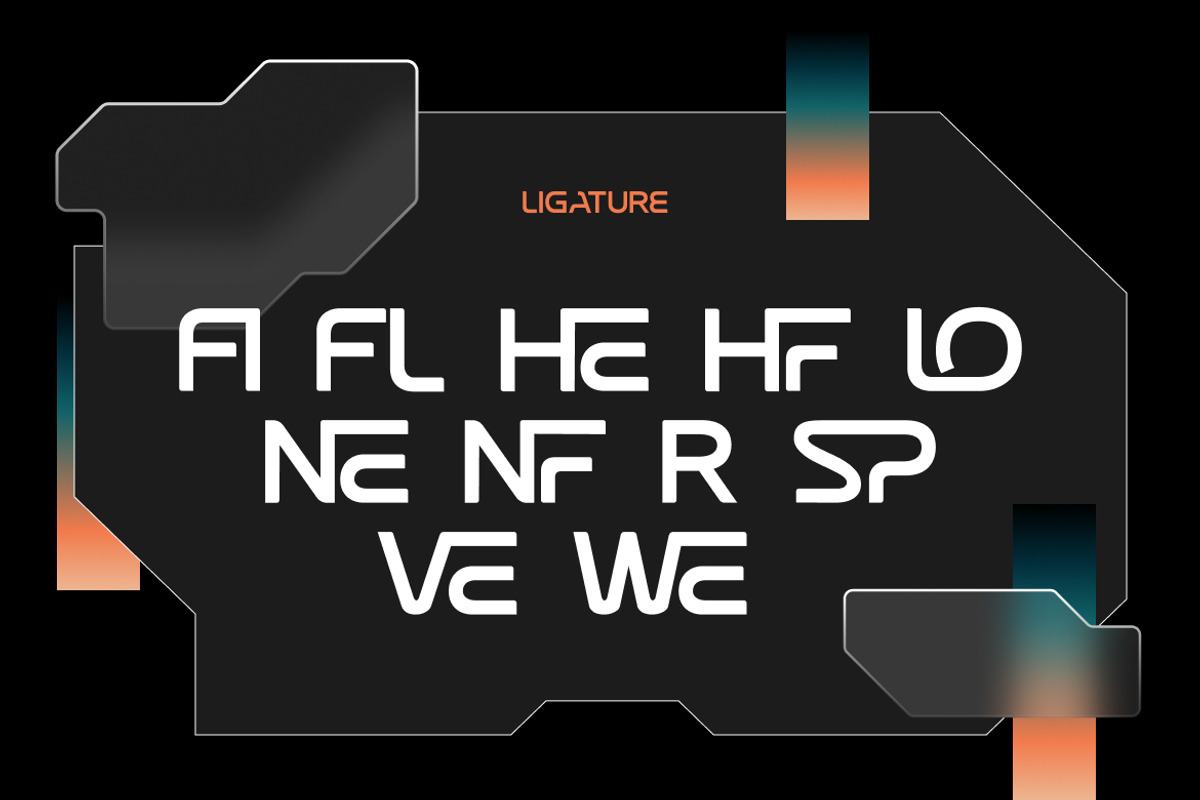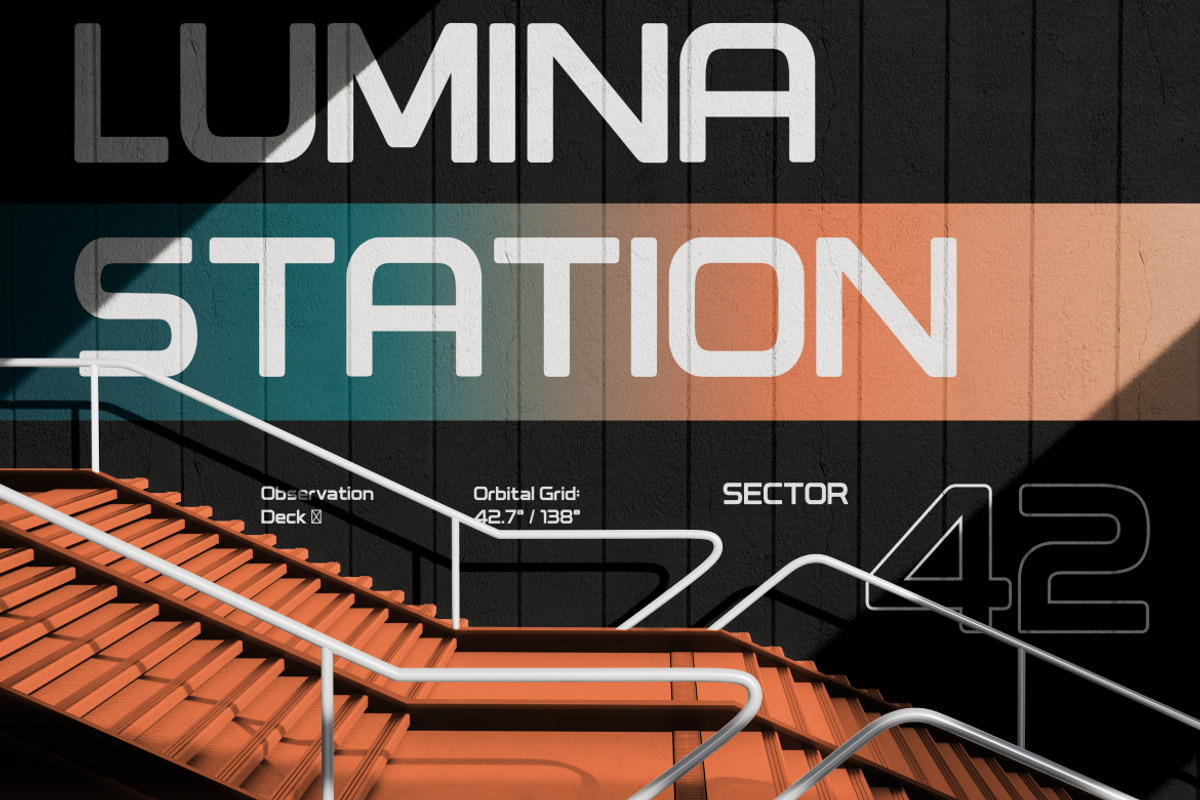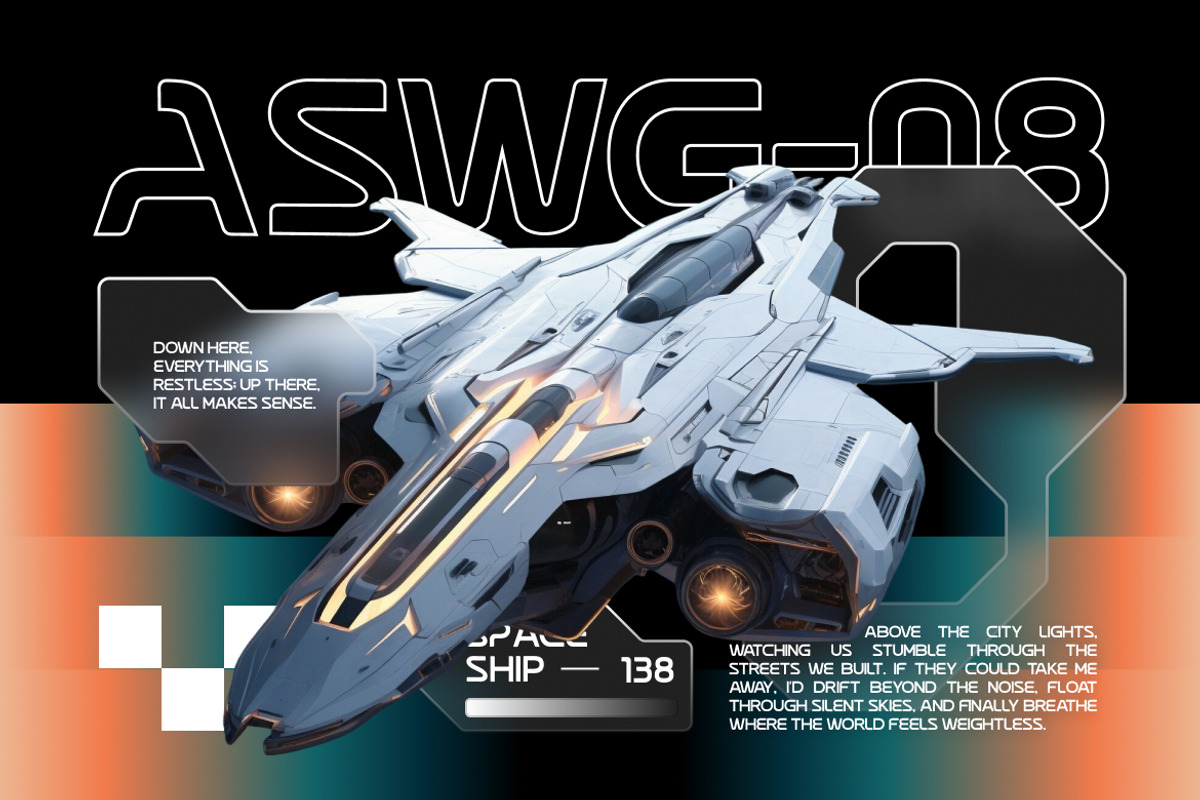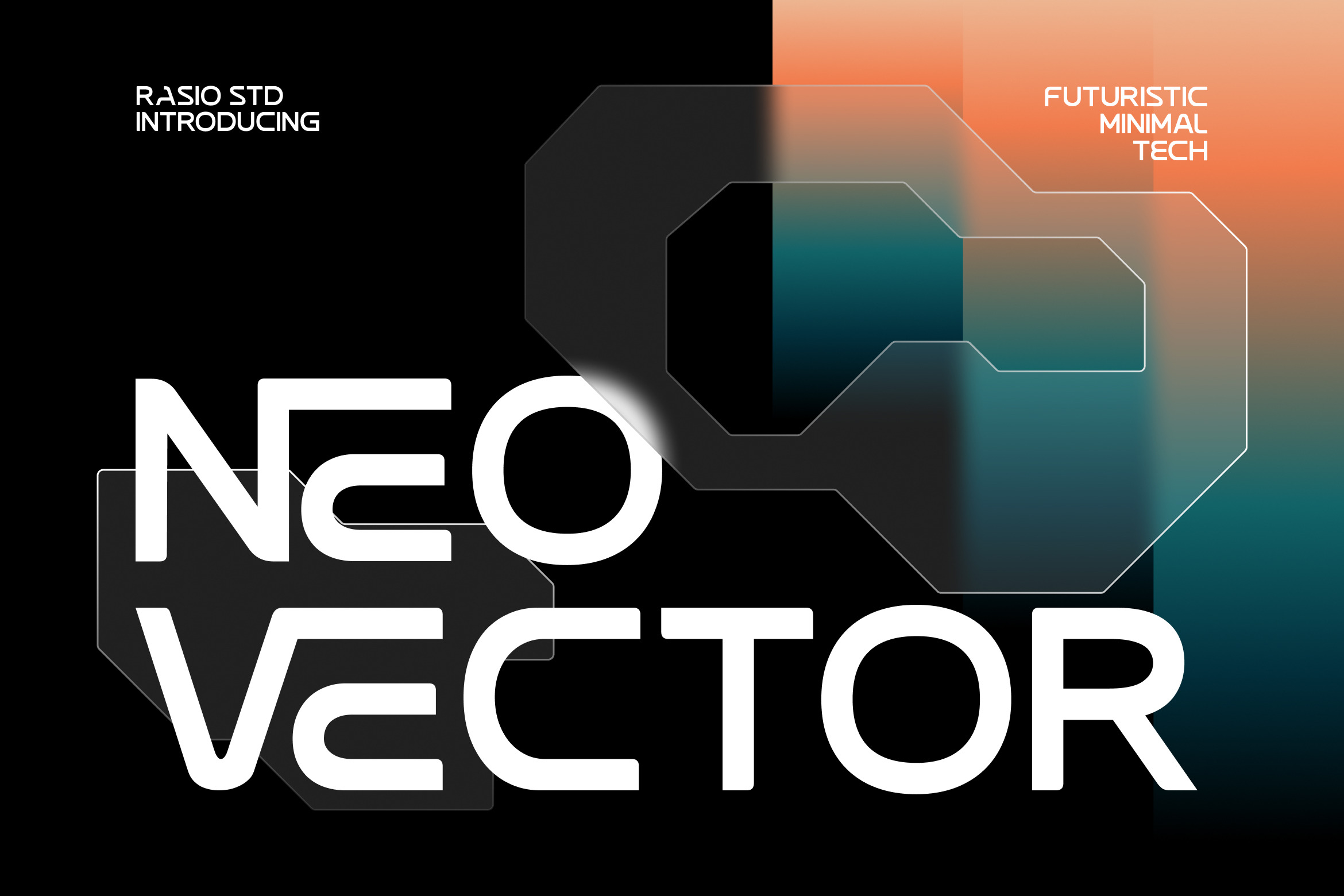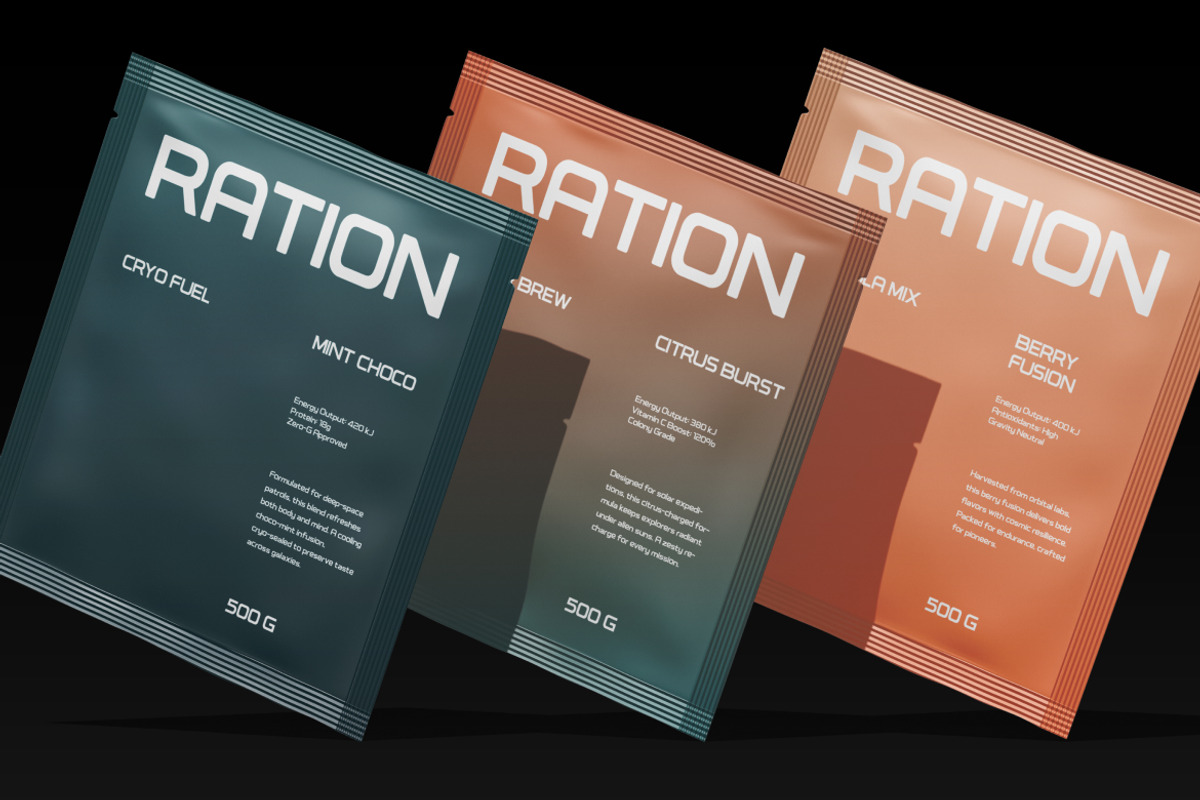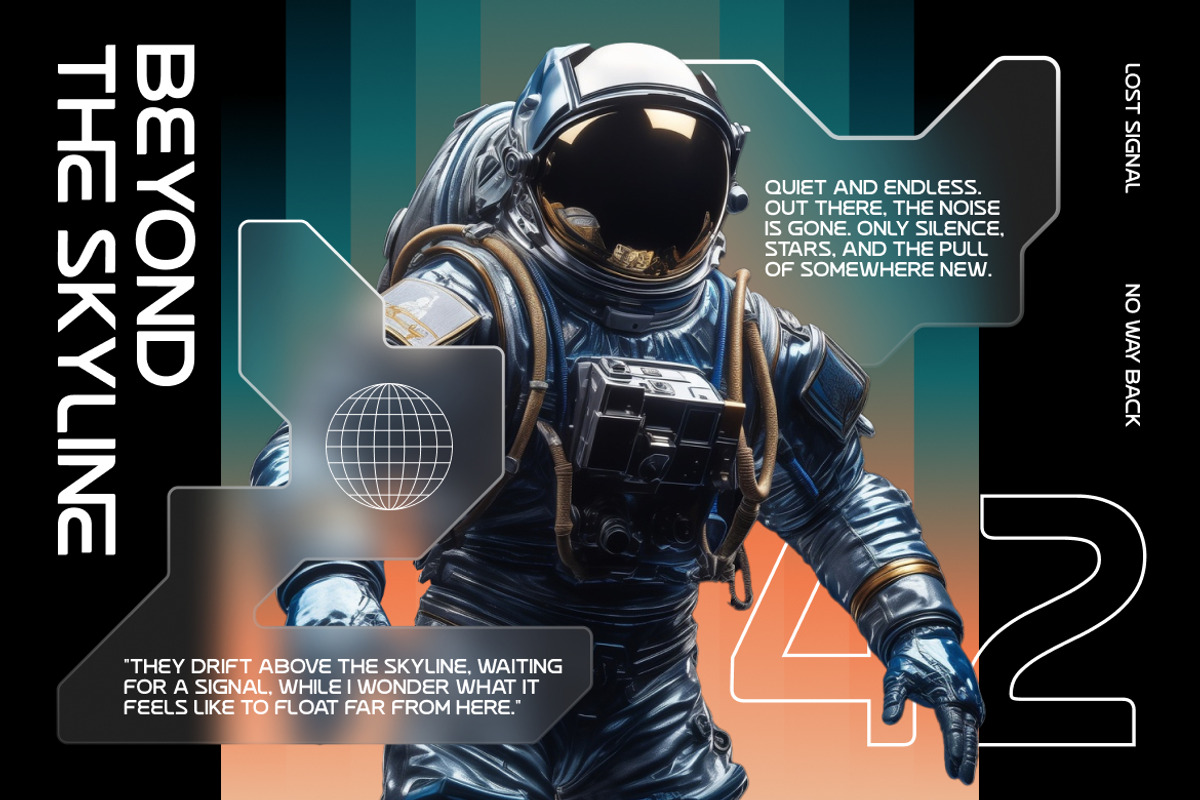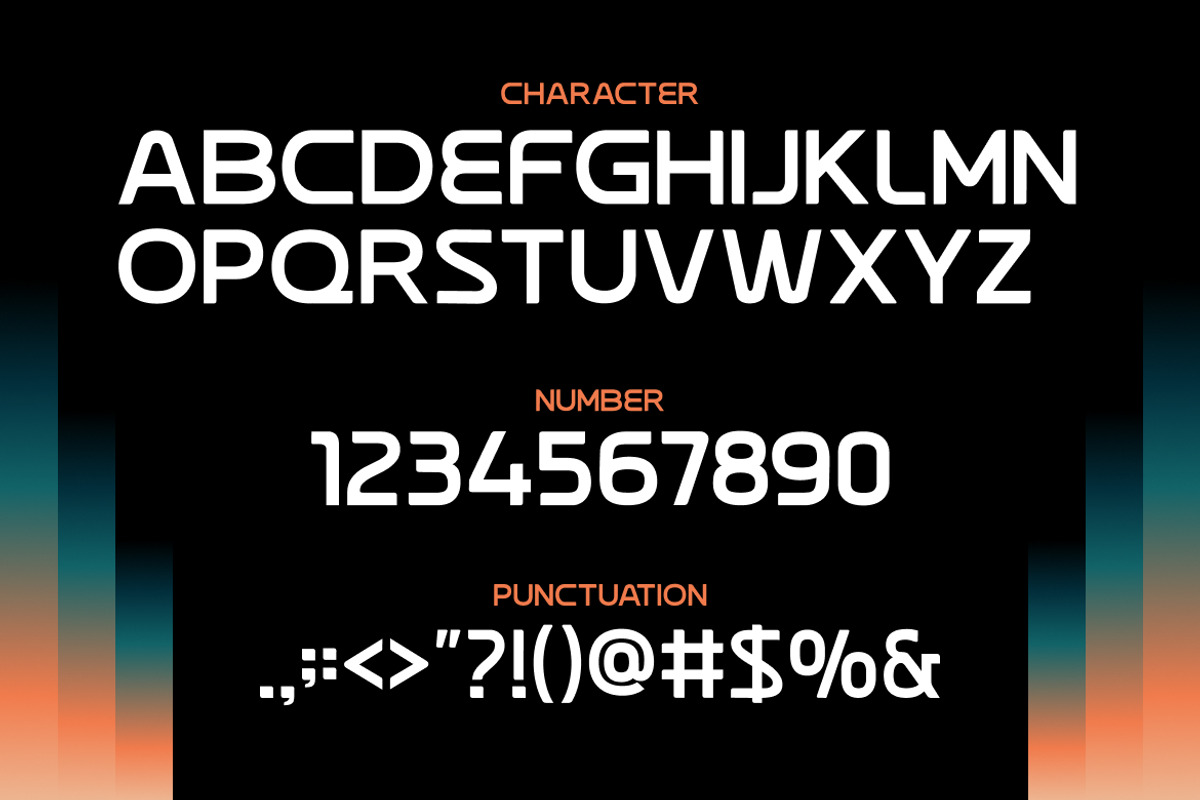
Neo Vector Futuristic Minimal Font
Neo Vector is a futuristic minimal tech display font inspired by sci-fi interfaces, spacecraft silhouettes, and modern digital systems. It features geometric construction, wide proportions, rounded corners, and clean uniform strokes that create a sleek high-tech appearance. The typeface includes uppercase characters, numbers, and punctuation, designed for sharp on-screen readability and bold visual impact.
Neo Vector is perfect for tech startups, gaming titles, esports branding, UI/UX interfaces, app dashboards, sci-fi posters, digital product packaging, motion graphics, YouTube tech thumbnails, and futuristic marketing campaigns that require clean, bold, and modern typography. Ideal for technology brands, gaming projects, digital startups, mobile applications, software interfaces, esports graphics, sci-fi merchandise, tech presentations.
- Geometric techno structure built from clean angles and precise shapes
- Wide proportions and extended letterforms for strong futuristic presence
- Rounded corners blended with sharp cuts for a sleek sci-fi silhouette
- Uniform stroke weight with minimal contrast for a stable digital look
- Optimized spacing for bold headlines, UI elements, and large display readability
- Tech startups and futuristic brand identity systems
- UI/UX interfaces, dashboards, and mobile or web app designs
- Gaming titles, esports branding, and sci-fi themed graphics
- Digital products, software packaging, and gadget promotions
- Posters, headers, and social media visuals requiring bold modern impact
Power your visuals with Neo Vector and let every word feel fast, sharp, and modern